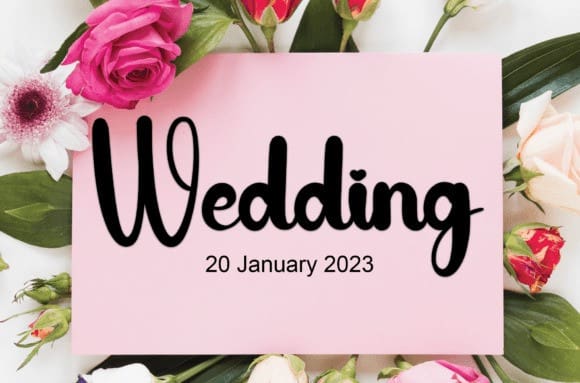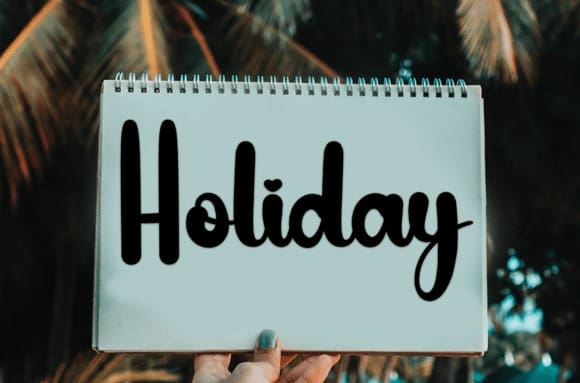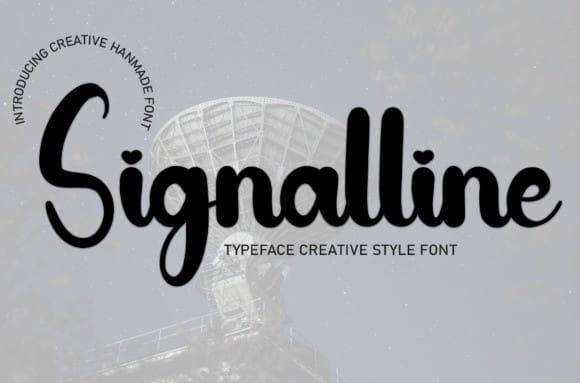
Signalline Script Font
Signalline Script Font, is a sweet handwritten font. Friendly and cute, this font is ideal for writing wedding invitations, cards, or any other design that might need a fun touch!